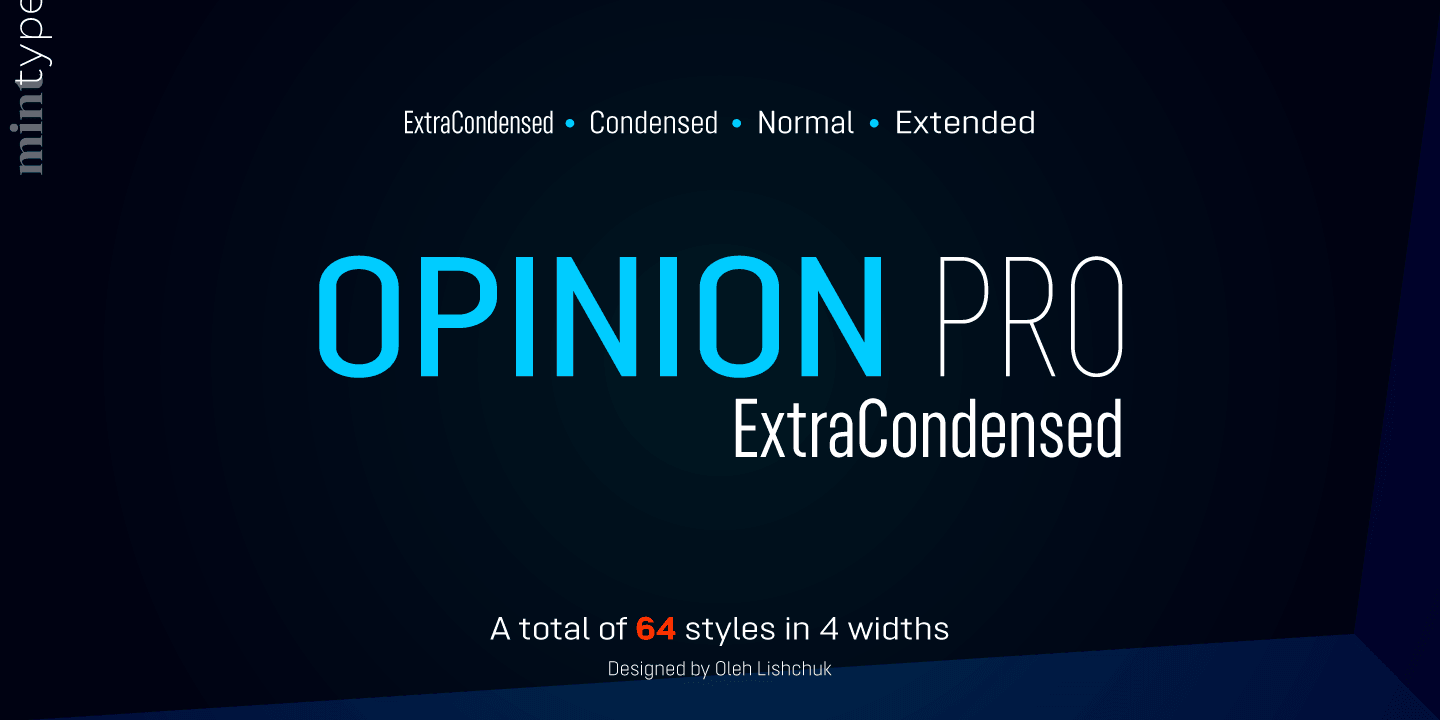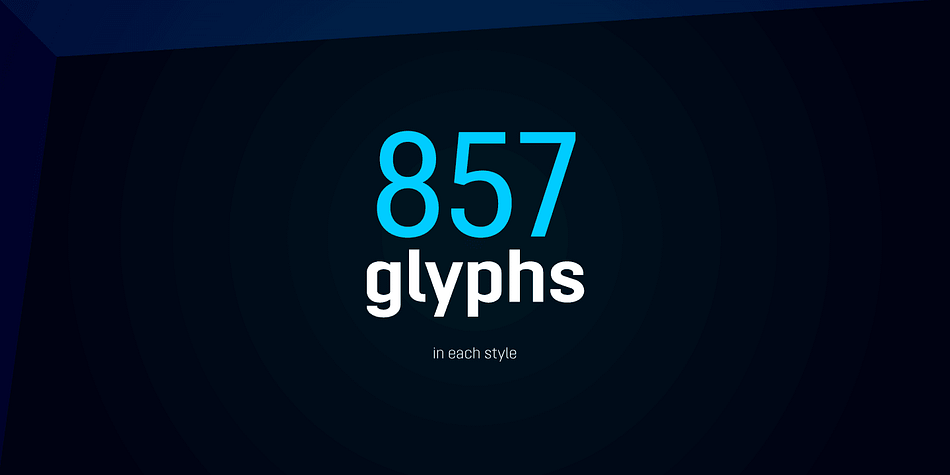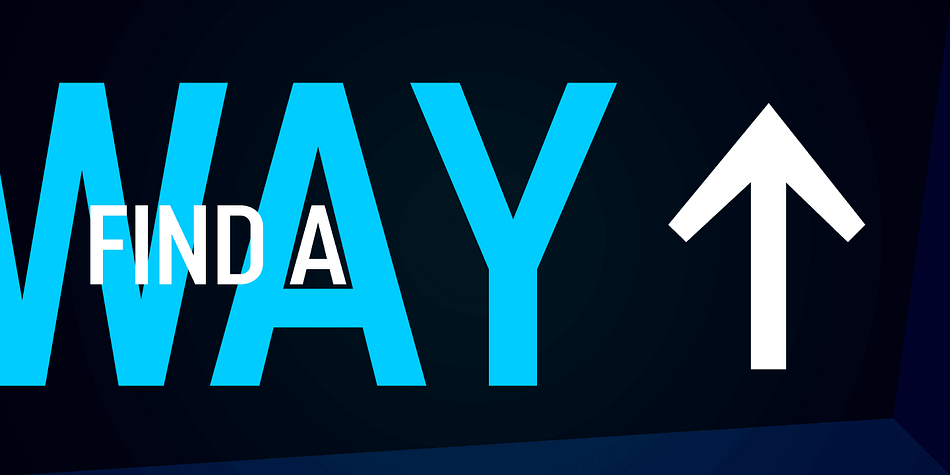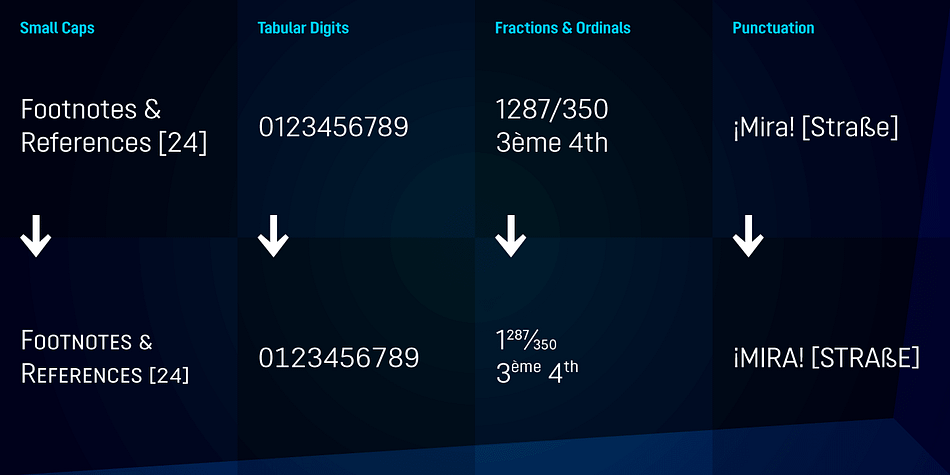
Designed by Oleh Lishchuk, Opinion Pro Extra Condensed is a sans serif font family. This typeface has sixteen styles and was published by Mint Type.
Opinion Pro is a geometric grotesque sans-serif typeface with extra-large x-height that comes in 64 styles. It is composed of 4 width variations, each in 8 weights with respective italics. Its rigid curves with pronounced vertical stems makes it useful as both display and paragraph typefaces. Also it works particularly well as a typeface for technical applications such as wayfinding or labeling of any kind.
Opinion Pro features a wide range of supported languages, including all Latin-based European languages, main Cyrillic languages, plus Kazakh. The OpenType features include, among others, 4 sets of digits, small-caps, ordinals.